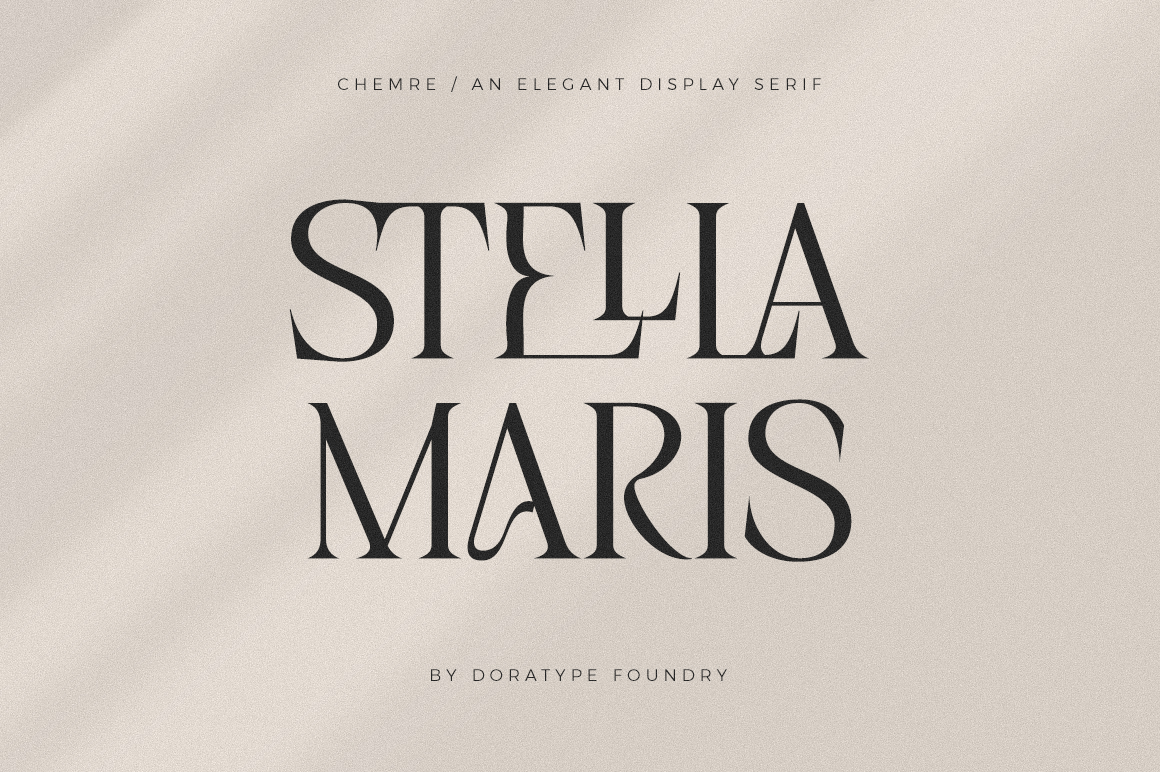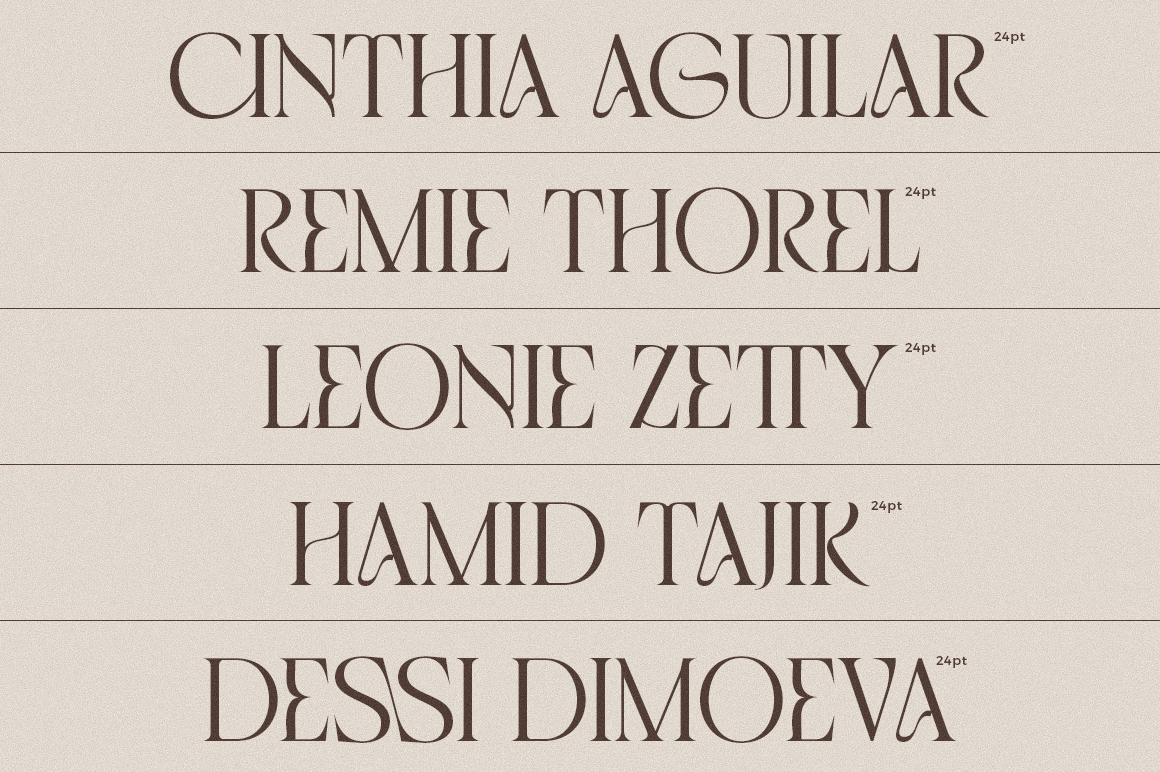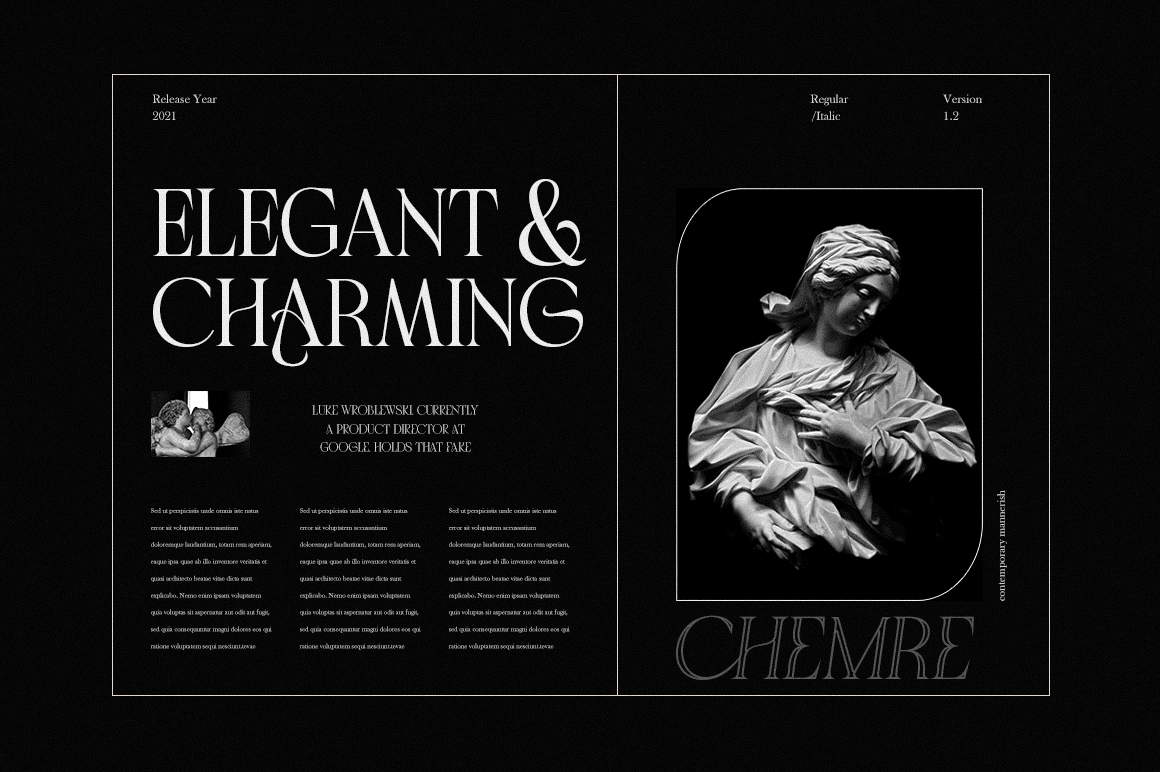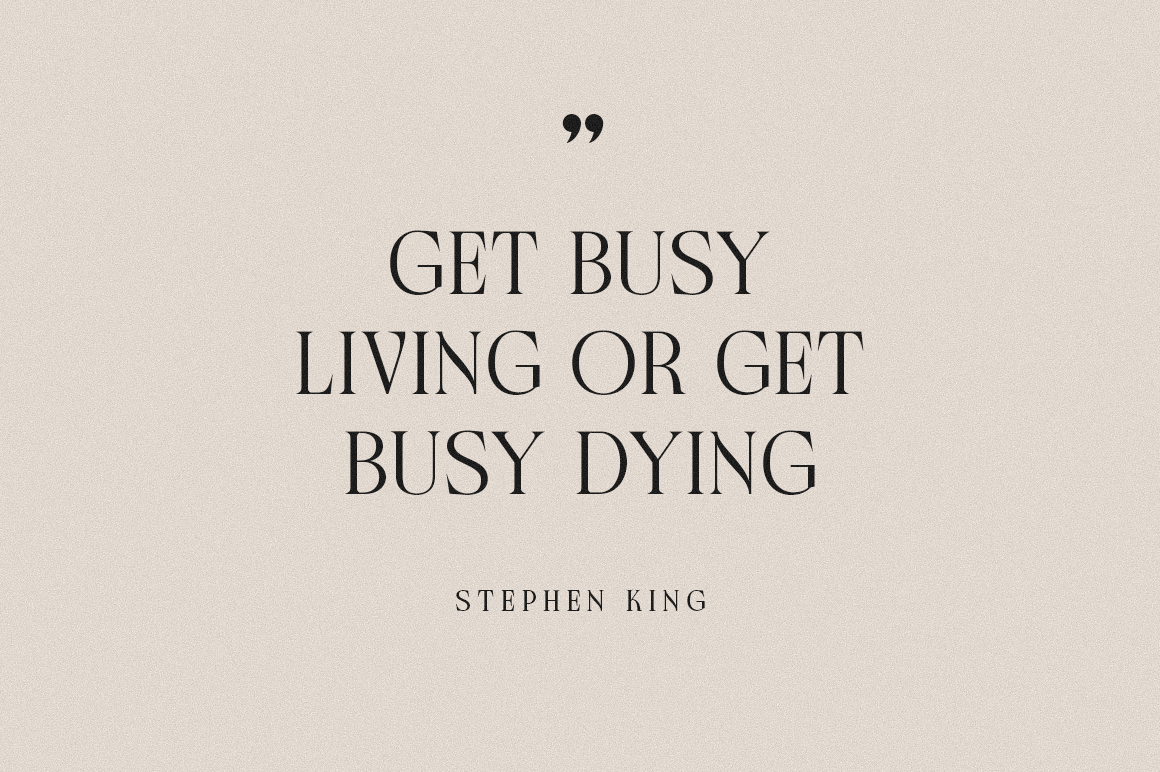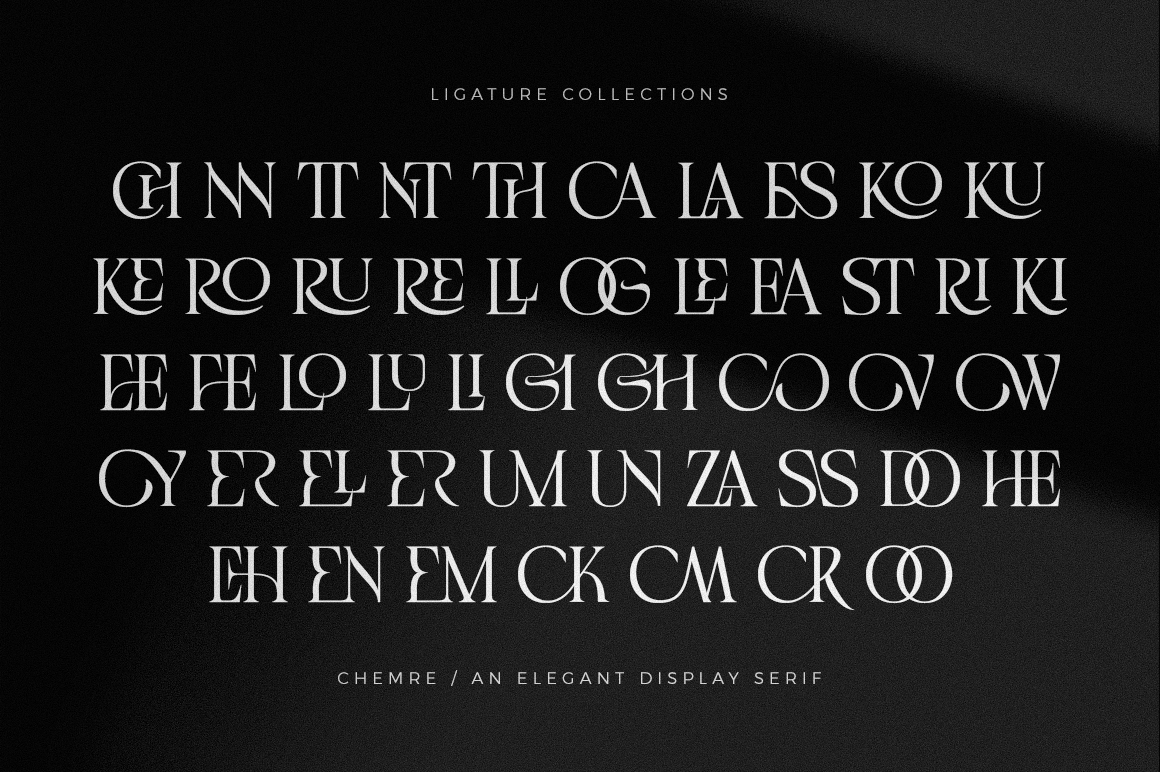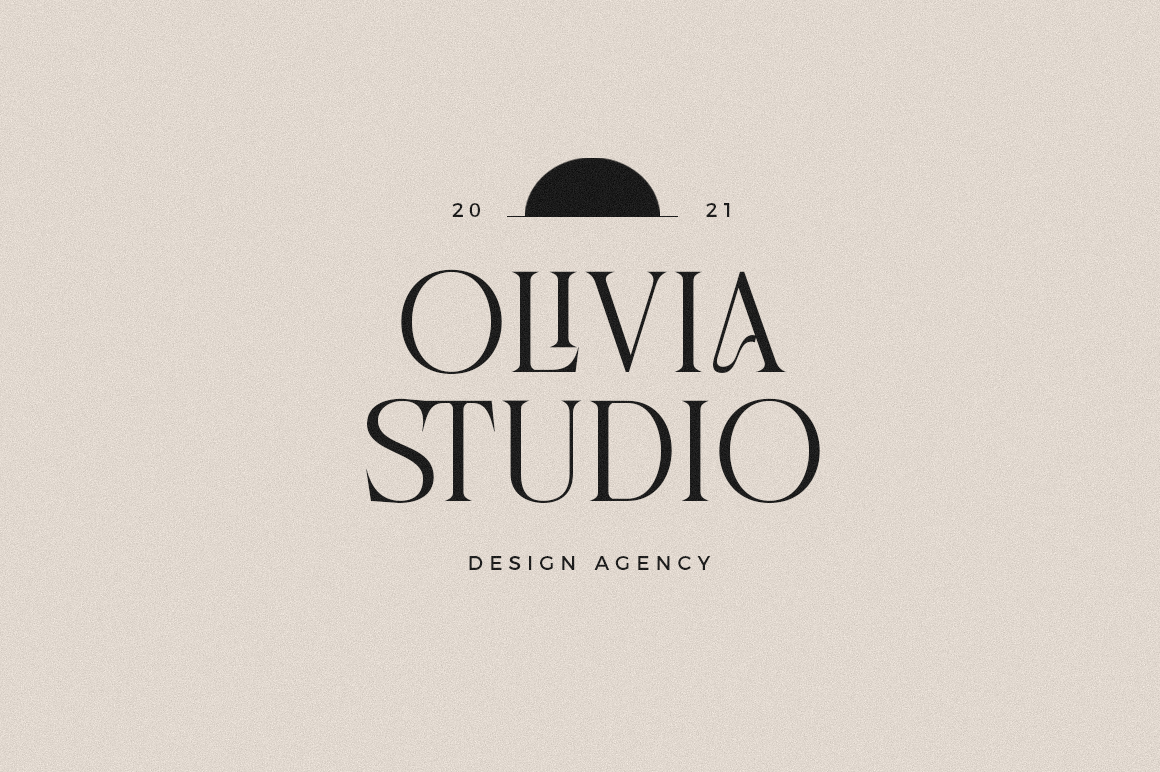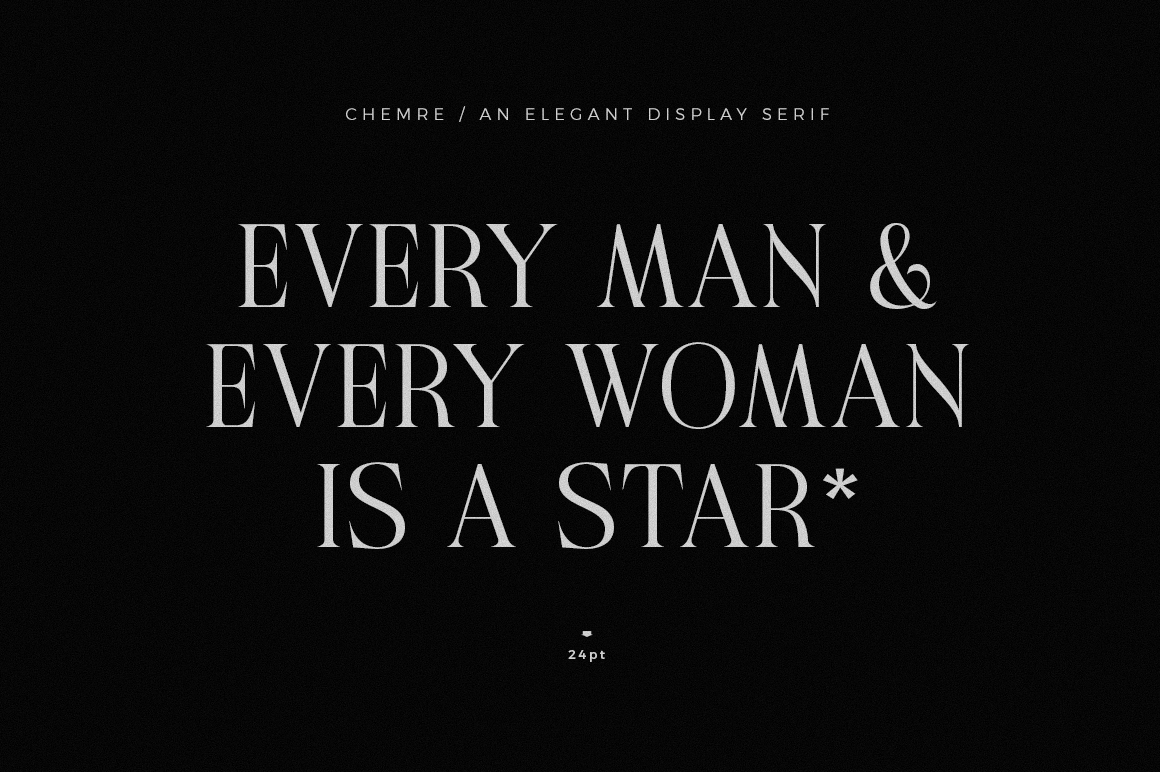
About Chemre
Chemre is a serif font filled with a modern and classy atmosphere. This font is complemented with a mix of all caps, which is the same height and allows for unlimited combinations to give a unique style to your typography. The high contrast between thick…